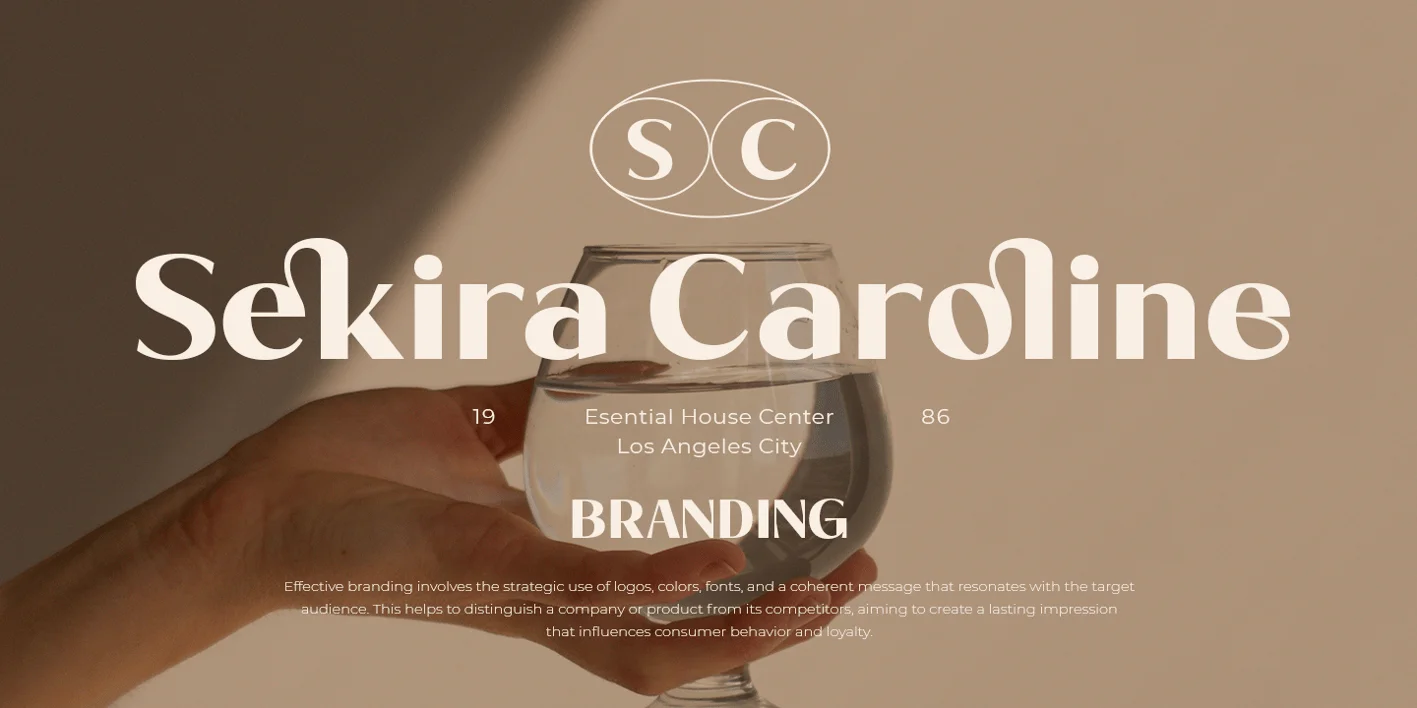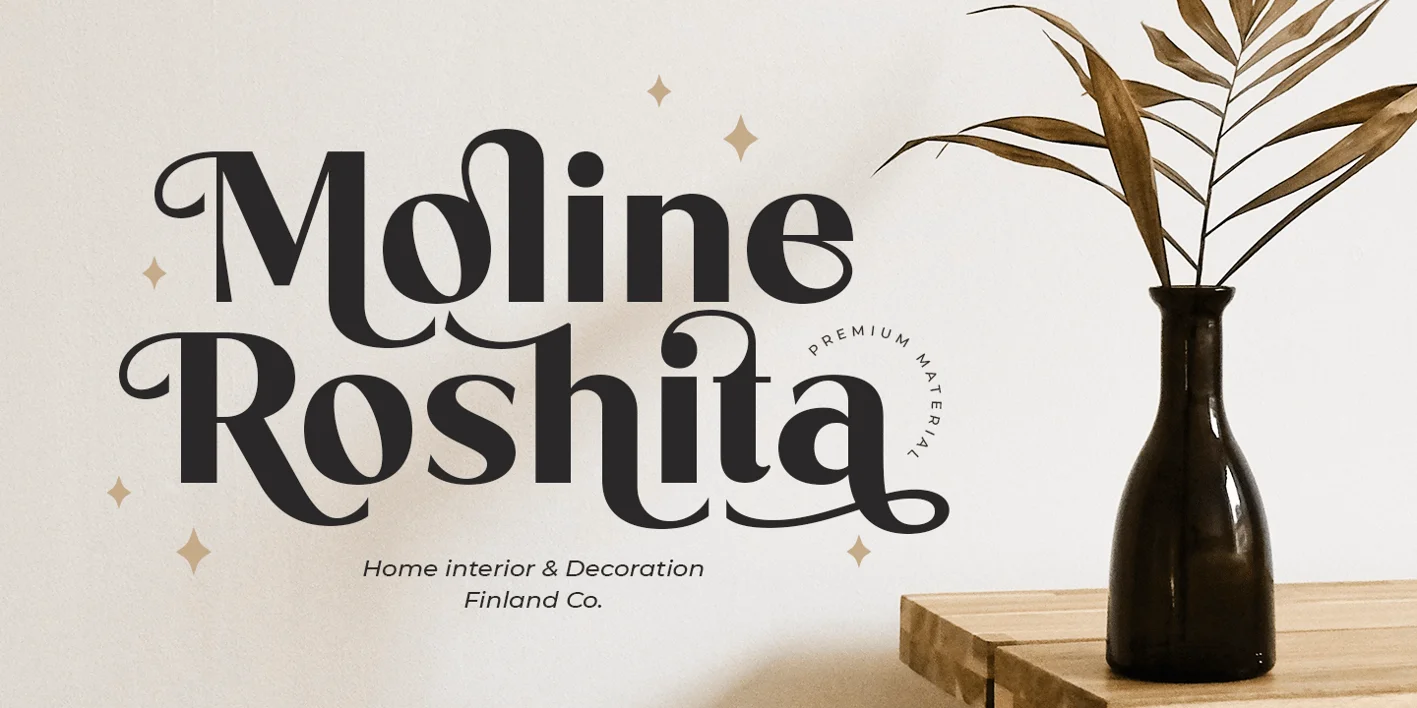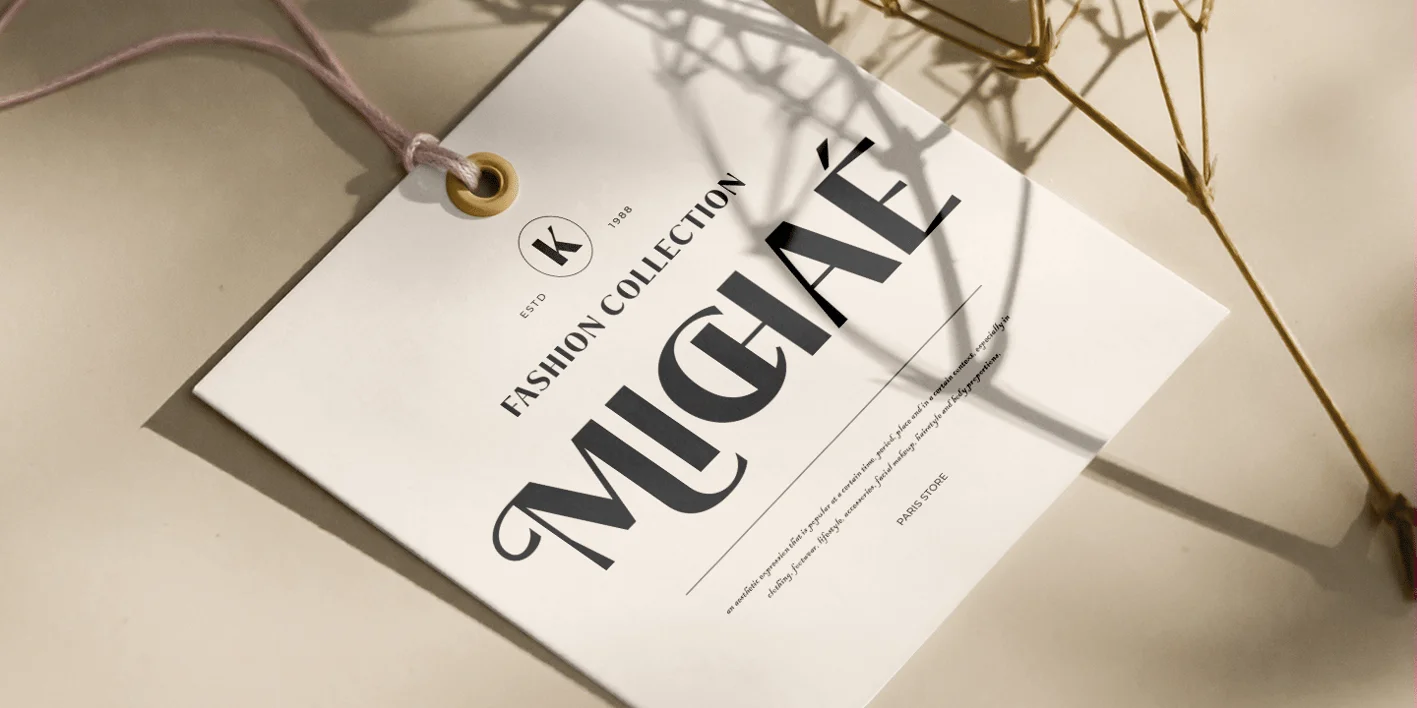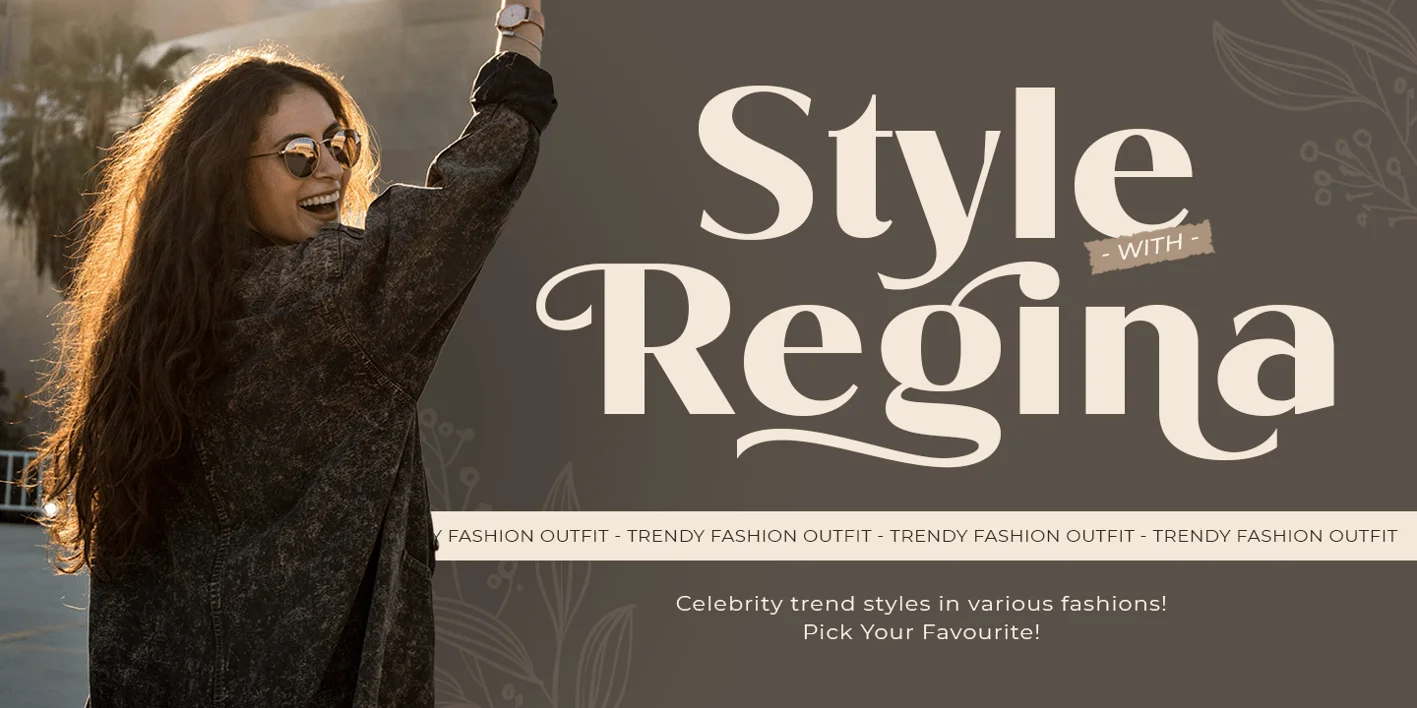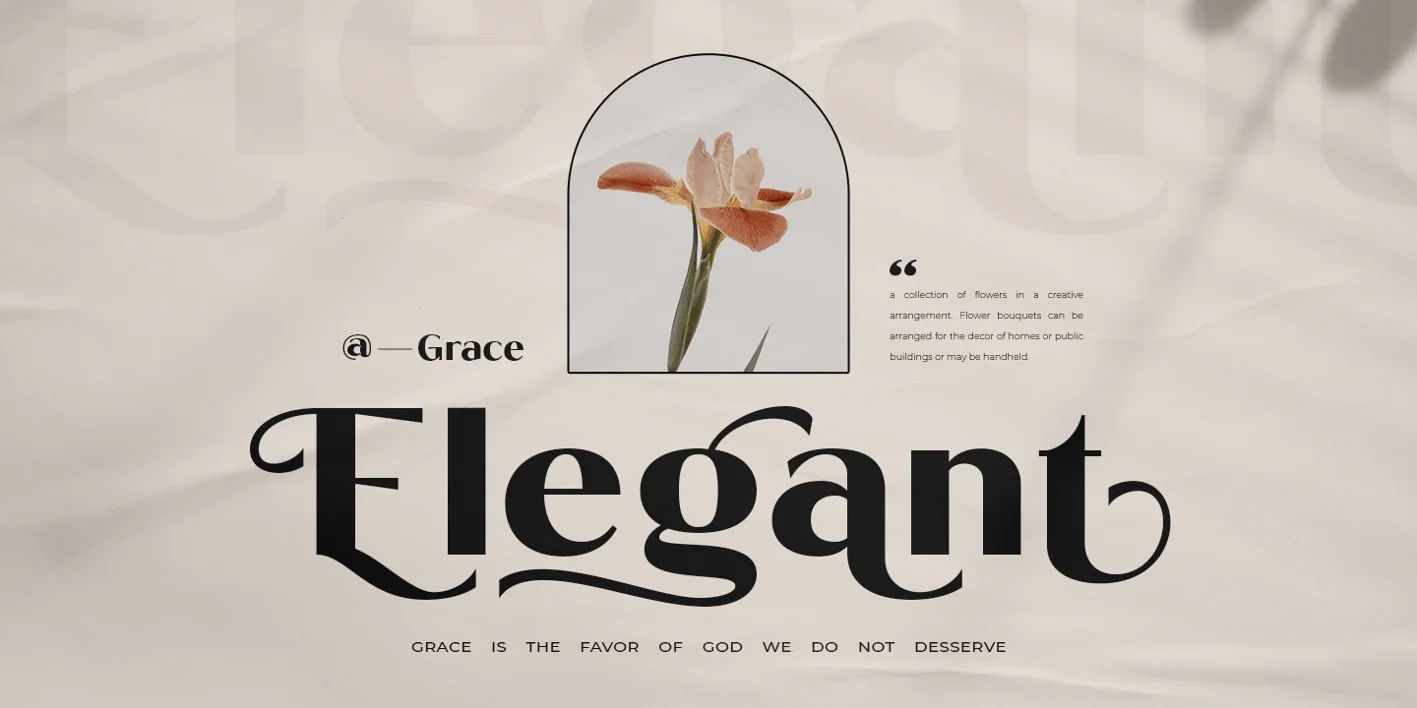
Kelisha Aesthetic Font
There is a particular satisfaction in finding a typeface that delivers strong typographic hierarchy support without compromise. Kelisha Aesthetic consistently provides it. The typeface brings a versatile sensibility to a broad range of creative disciplines, with a confident voice that adapts to diverse briefs that holds up whether the work is print-first or screen-first.
In practice, Kelisha Aesthetic proves particularly effective for logo design, editorial layouts, web design, annual reports, brand identity systems. Designers reaching for it find that the type decisions feel resolved rather than laboured — a useful quality when client timelines are tight.
The range of applications extends to product labels, environmental graphics, social media graphics, signage systems. That breadth is deliberate: the proportions and spacing were stress-tested across a wide range of mock briefs before the typeface was finalised.
The consistent rhythm of Kelisha Aesthetic across a full paragraph creates the kind of even grey value that makes extended reading comfortable, a detail that matters more in long-form content than its subtlety might suggest.
In-house creative teams at consumer brands find Kelisha Aesthetic a reliable choice for projects that demand both personality and restraint. The design avoids the self-conscious quirkiness that dates quickly, settling instead for considered distinctiveness that holds up over time.